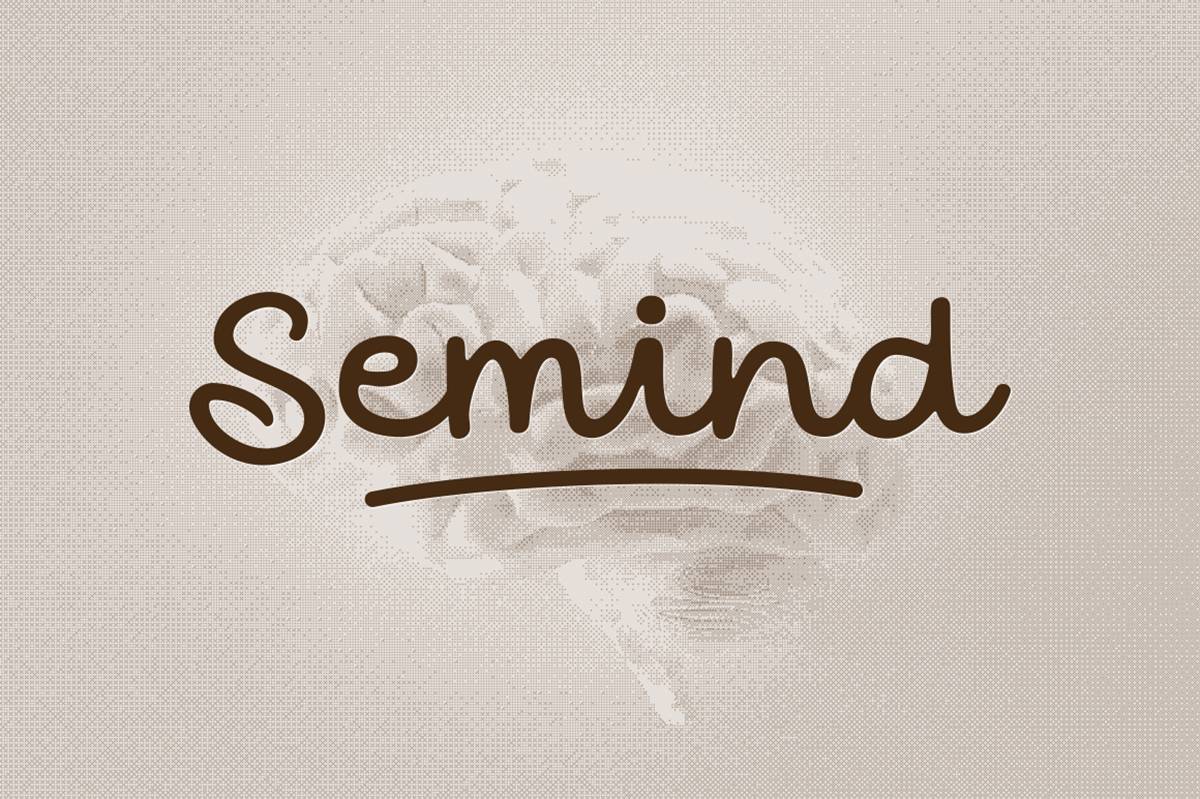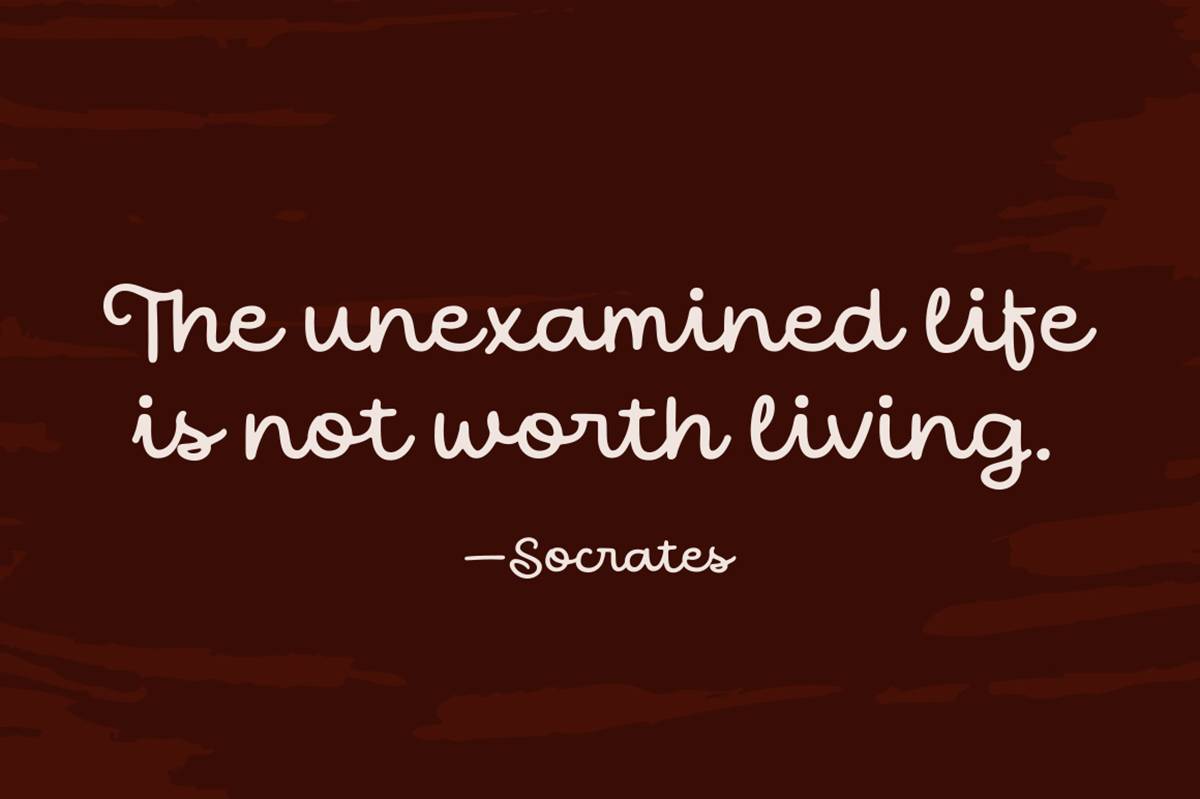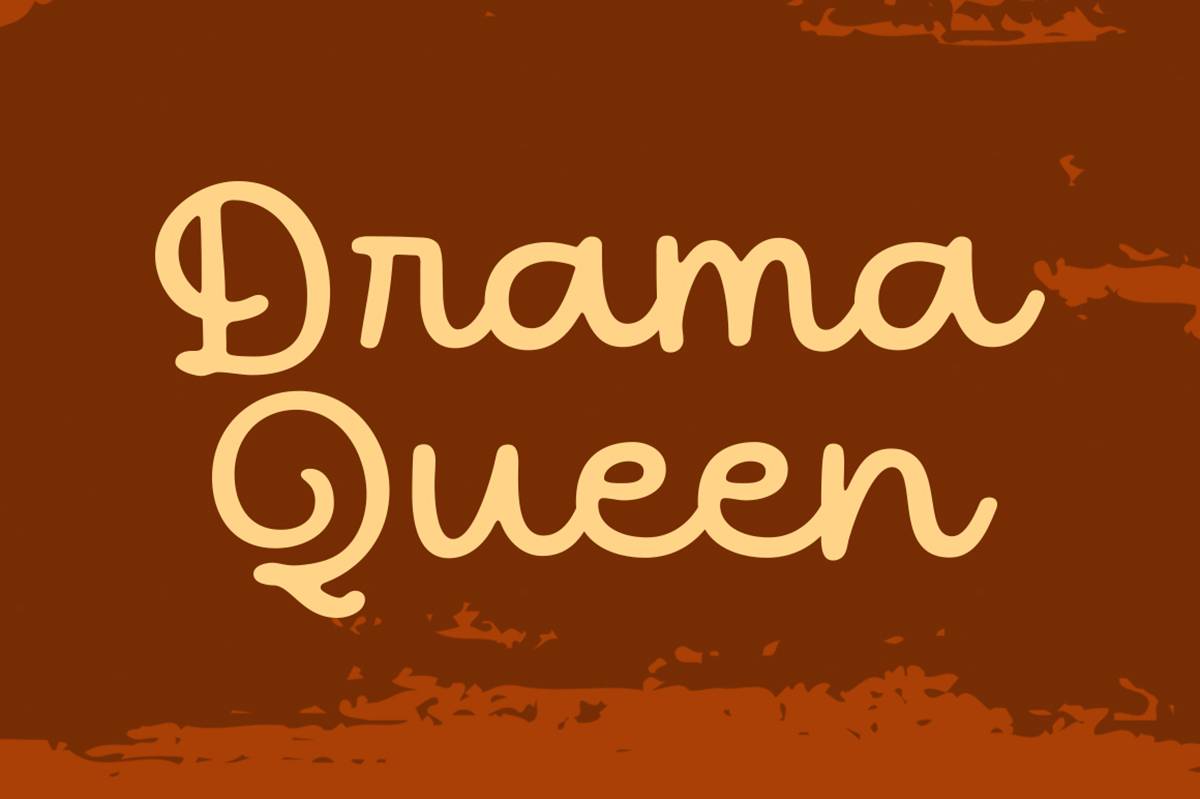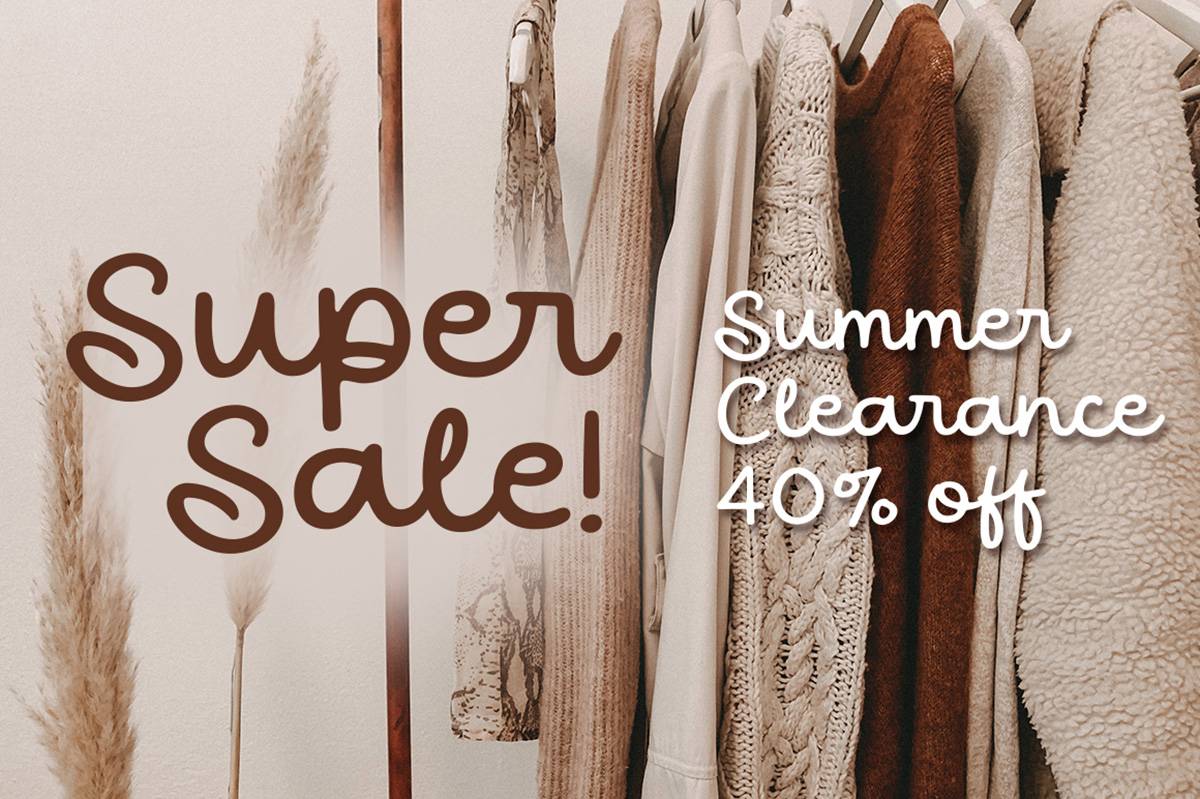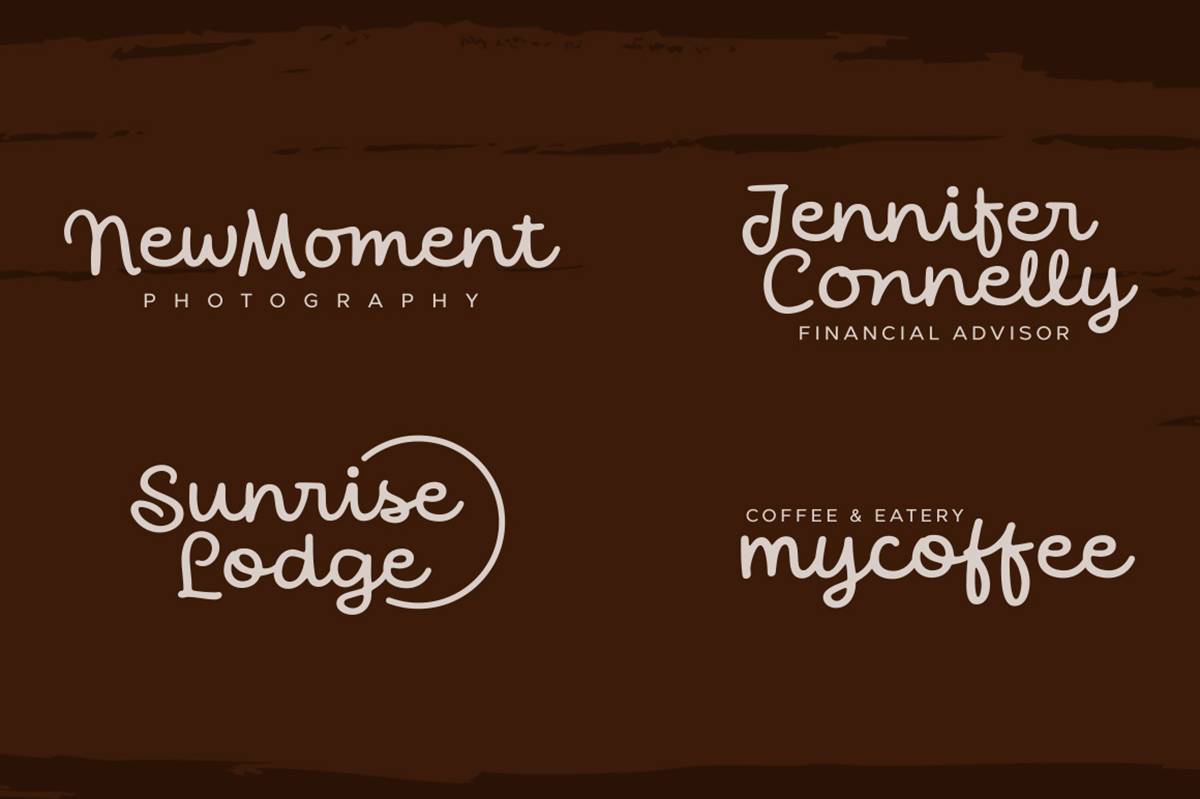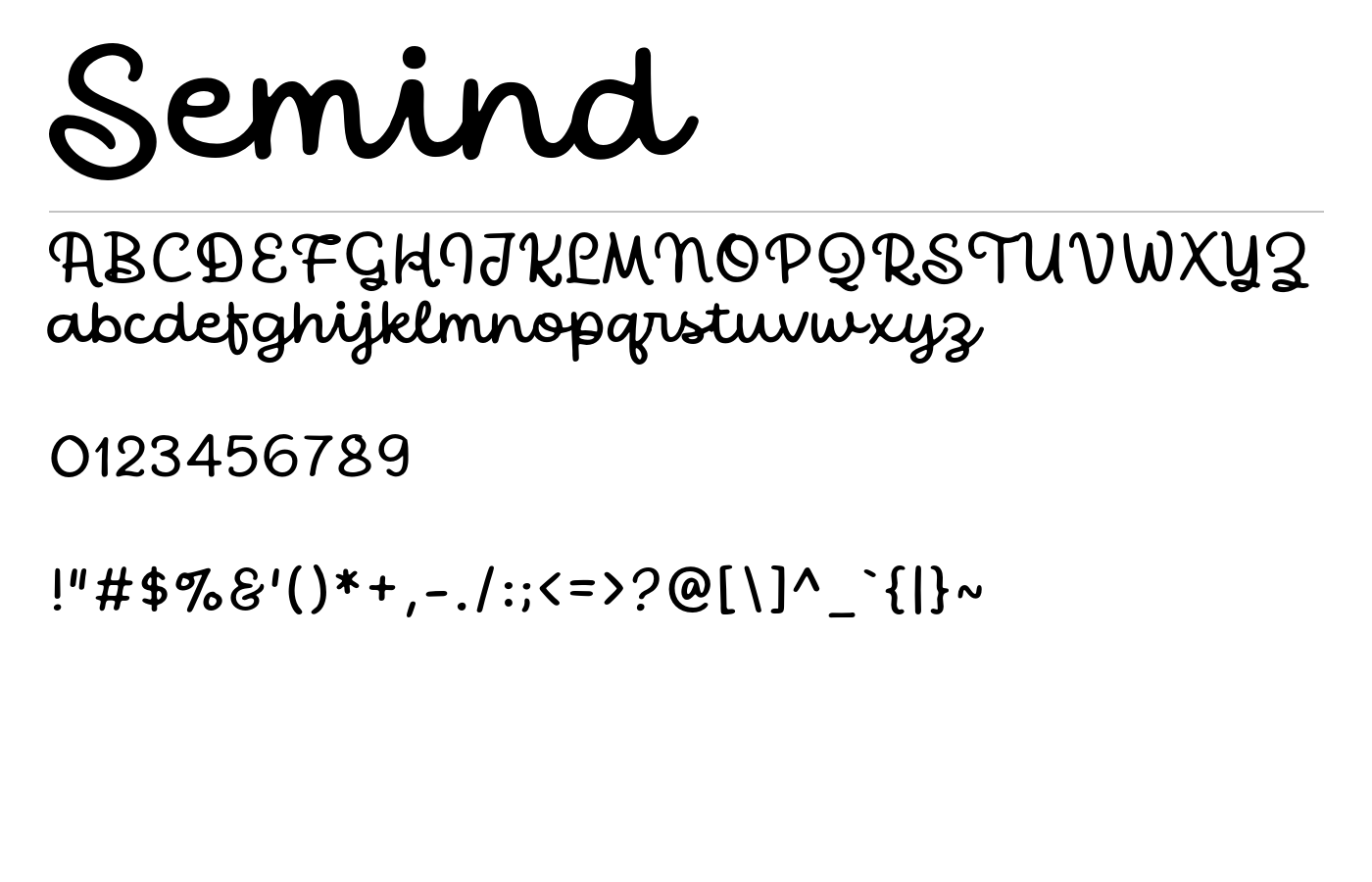
Semind Monoline is a playful and casual handwritten script font with uniform stroke weight and rounded letterforms, creating a friendly and approachable feel. Its monoline style and smooth curves make it perfect for informal, creative contexts such as children’s books, playful branding, and casual invitations. This font works best for headlines, logos, and design projects that want to convey warmth and personality with a clean, simple touch.
Semind Monoline Font
About Semind Monoline Font
| Font family | Semind Monoline Font |